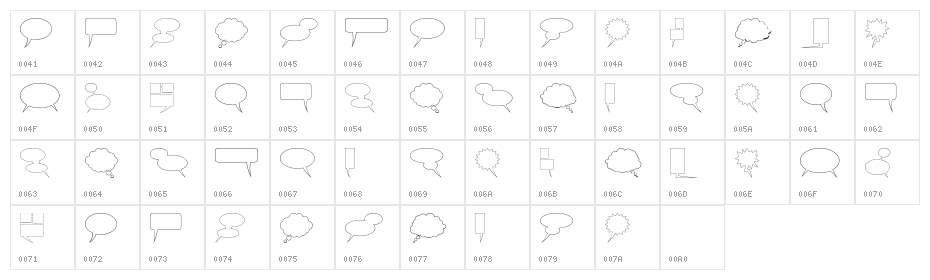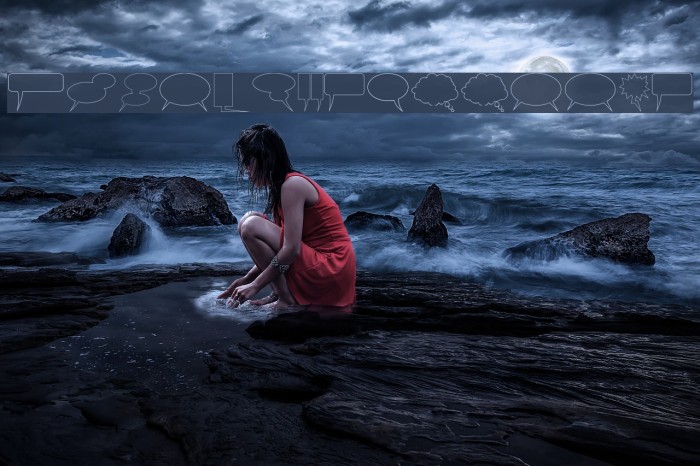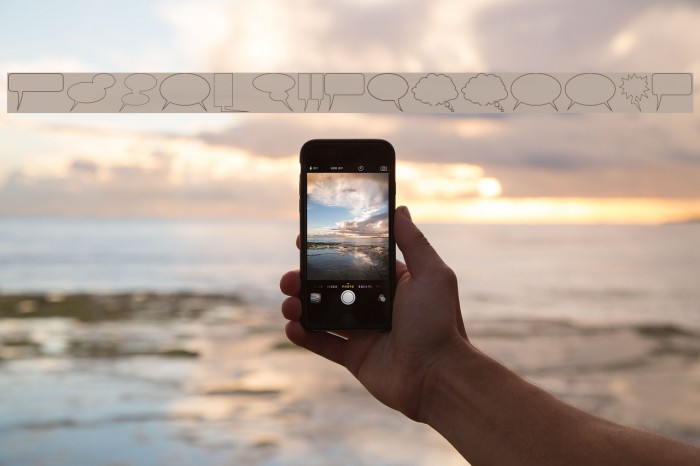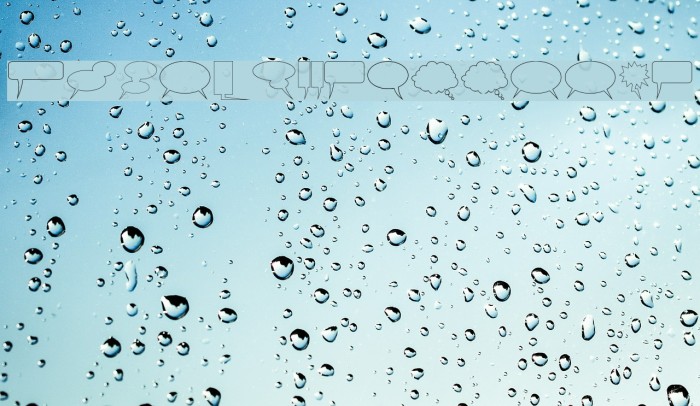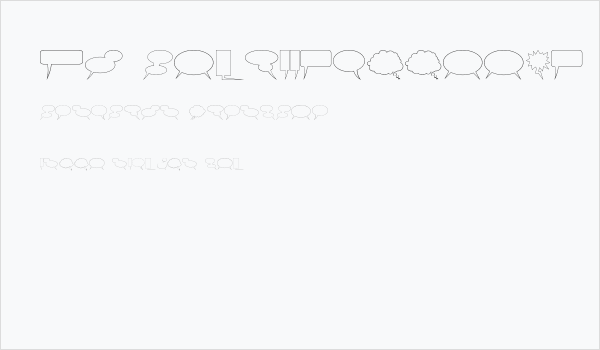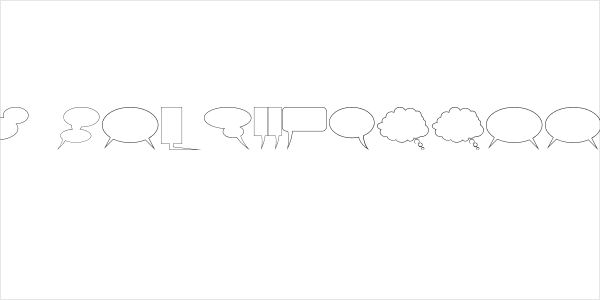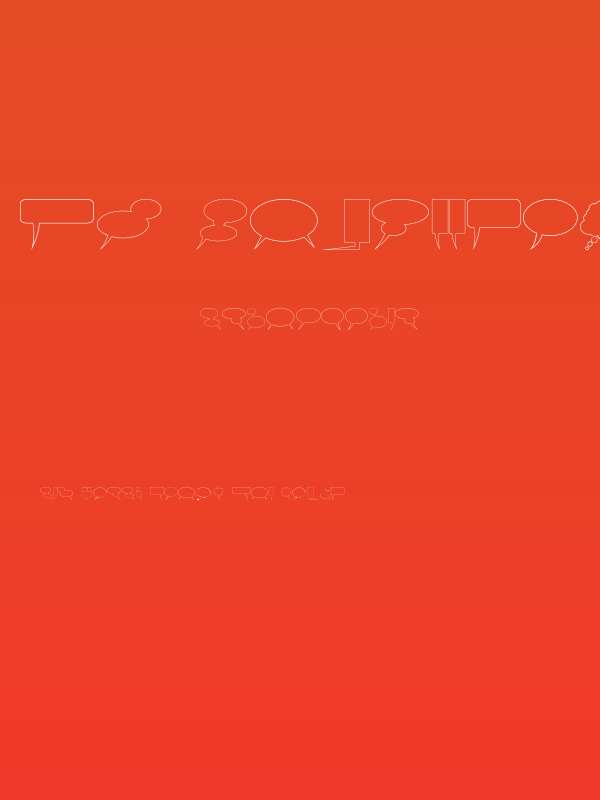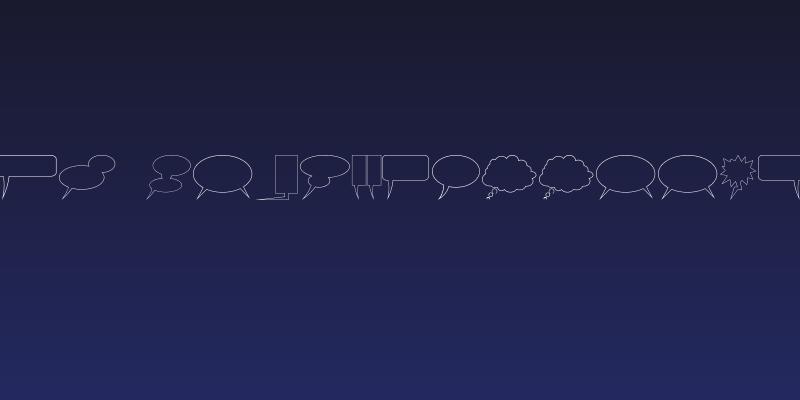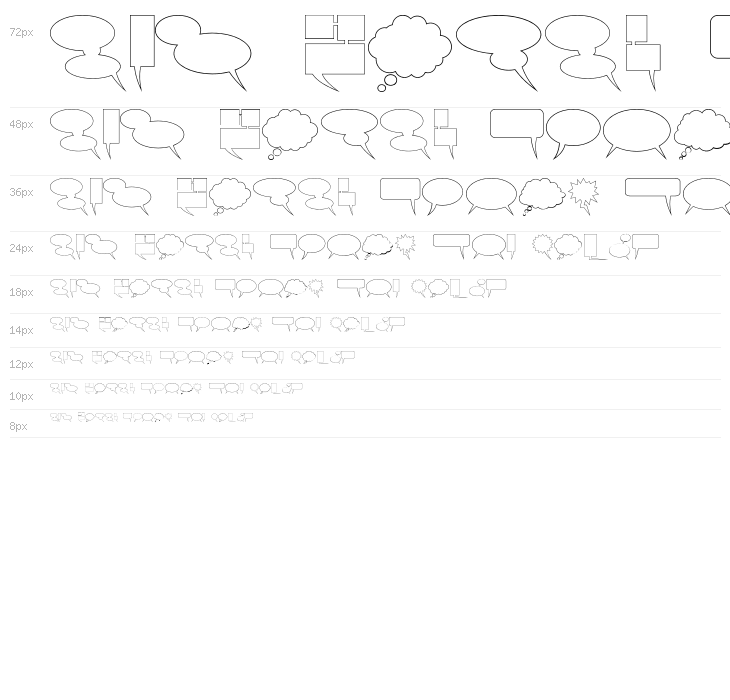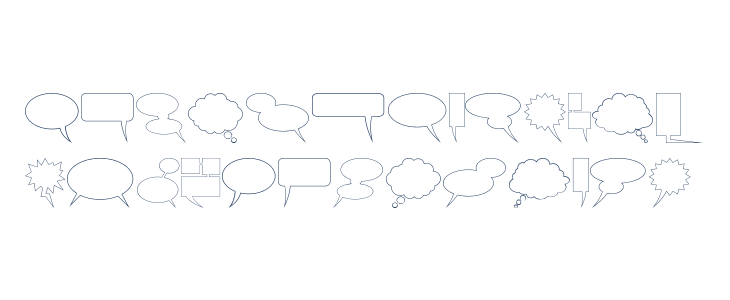
FE-ComixxBalloons Font
FE-ComixxBalloons Description
A collection of outlined comic-style speech and thought balloons, including various shapes such as ovals, rectangles, clouds, and bursts, designed for use as graphic elements rather than traditional letterforms.
Overall StyleDecorative, Comic, Playful
Use CaseGraphic elements for comics and cartoons
Proposed ProjectsComic books, graphic novels, cartoon strips, playful posters, children's materials, digital stickers.